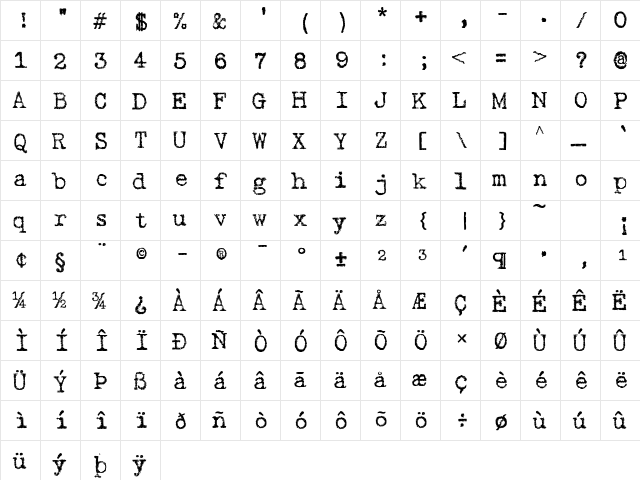
Gabriele Dark Ribbon FG Regular
| Designer | Andreas Hd and Dave Rakowski |
Design Context for Gabriele Dark Ribbon FG Typeface
Gabriele Dark Ribbon FG takes a measured approach to typography — its balanced proportions and neutral character make it a reliable workhorse for both digital and print work.